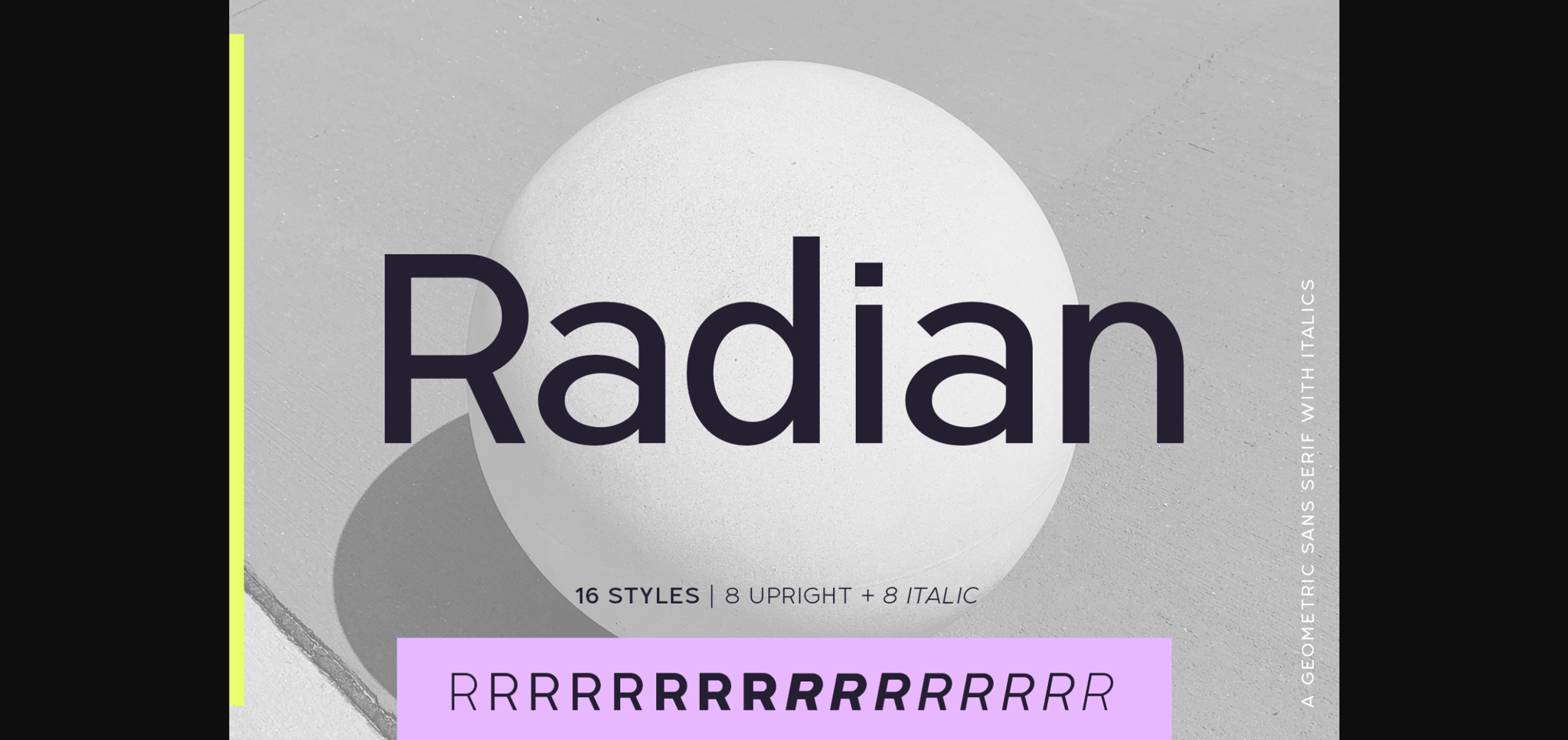
About Radian Font
Radian is a simple and casual sans serif font with an undeniably clean feel. With its neat and beautiful arrangement of letters, this typeface will look outstanding in both formal and non-formal designs.